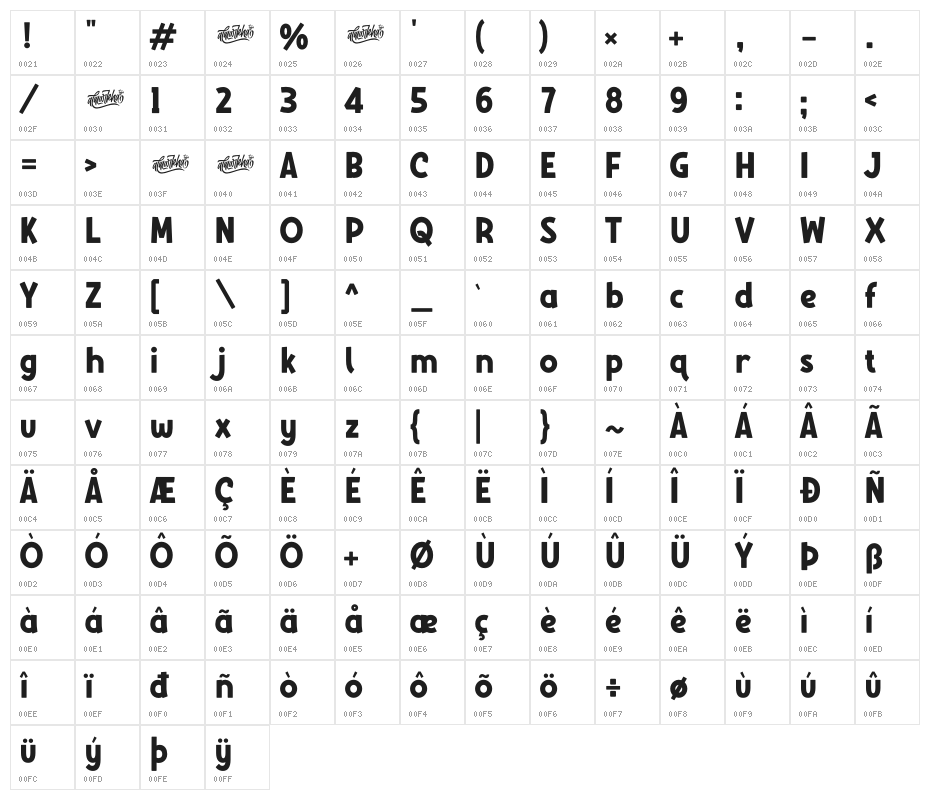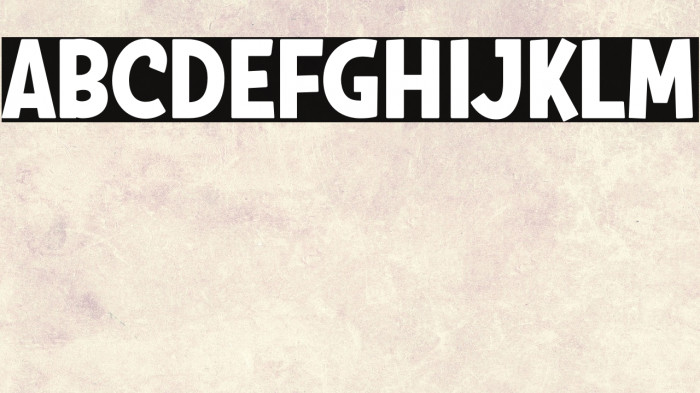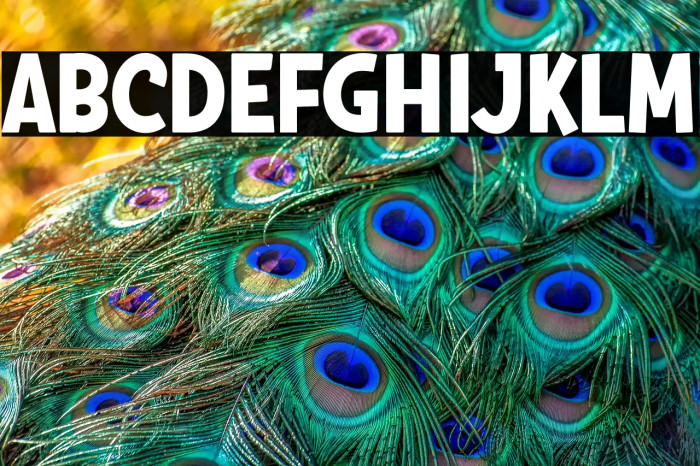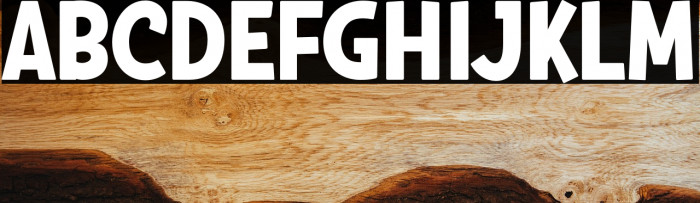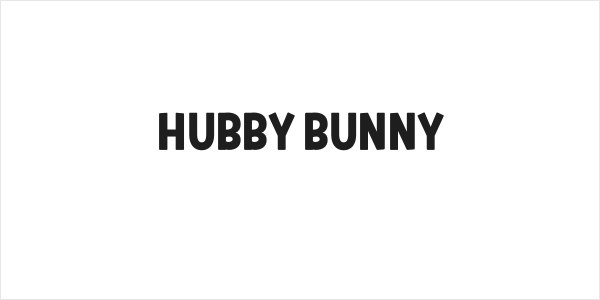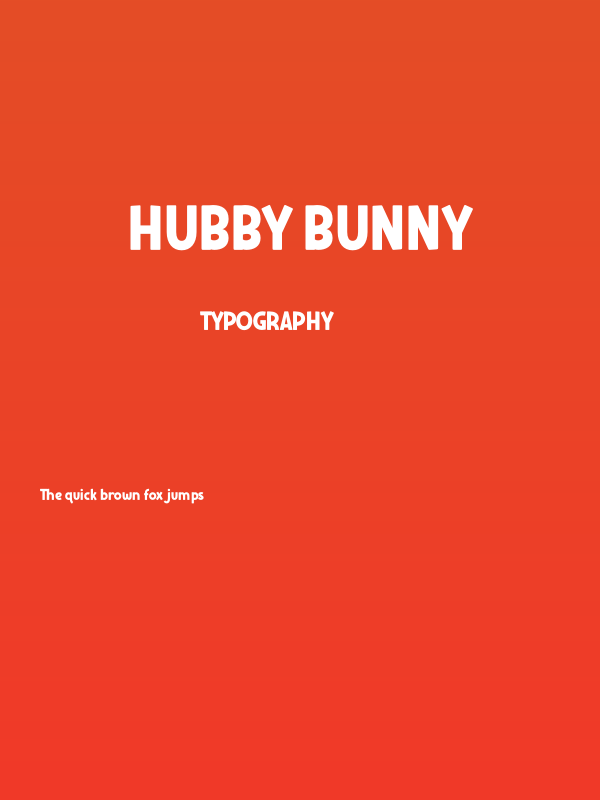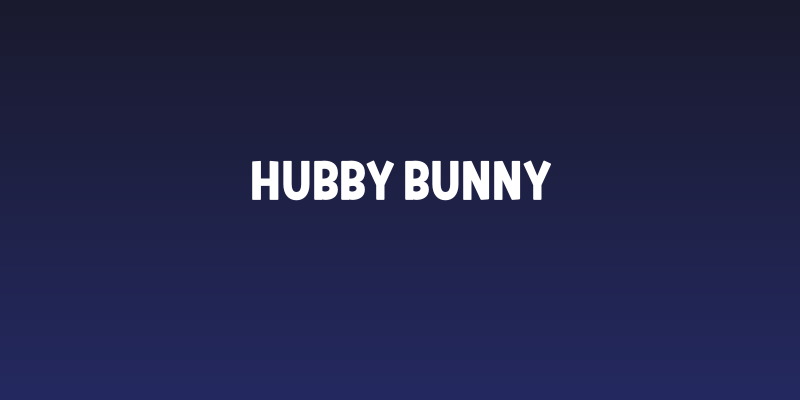
HUBBY BUNNY Font
HUBBY BUNNY Description
This font features bold, rounded characters with a playful and friendly appearance. The uppercase and lowercase letters are well-proportioned, with a consistent stroke width that gives the font a cohesive look. The numerals are clear and easy to read, maintaining the same boldness as the letters. Special characters are included, adding versatility to the font's use. The overall style is modern and approachable, making it suitable for a variety of design projects.
| Proposed Projects | Ideal for branding, packaging, children's books, and playful advertising campaigns. |